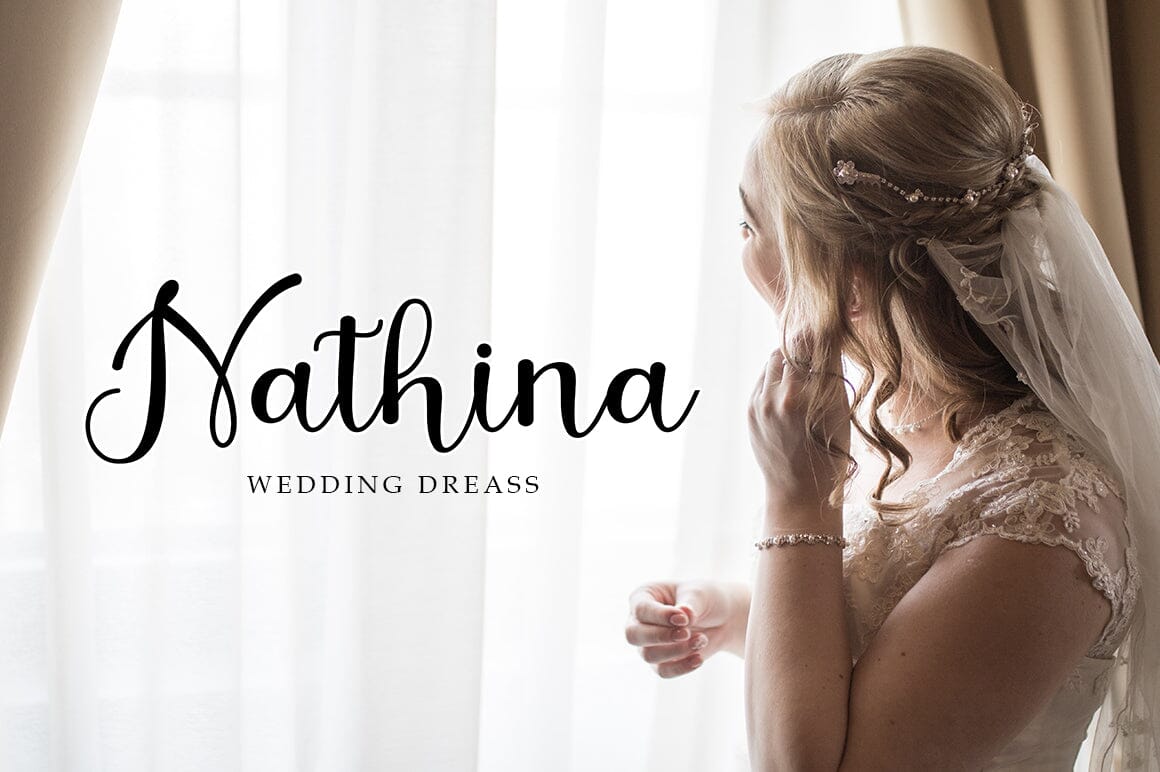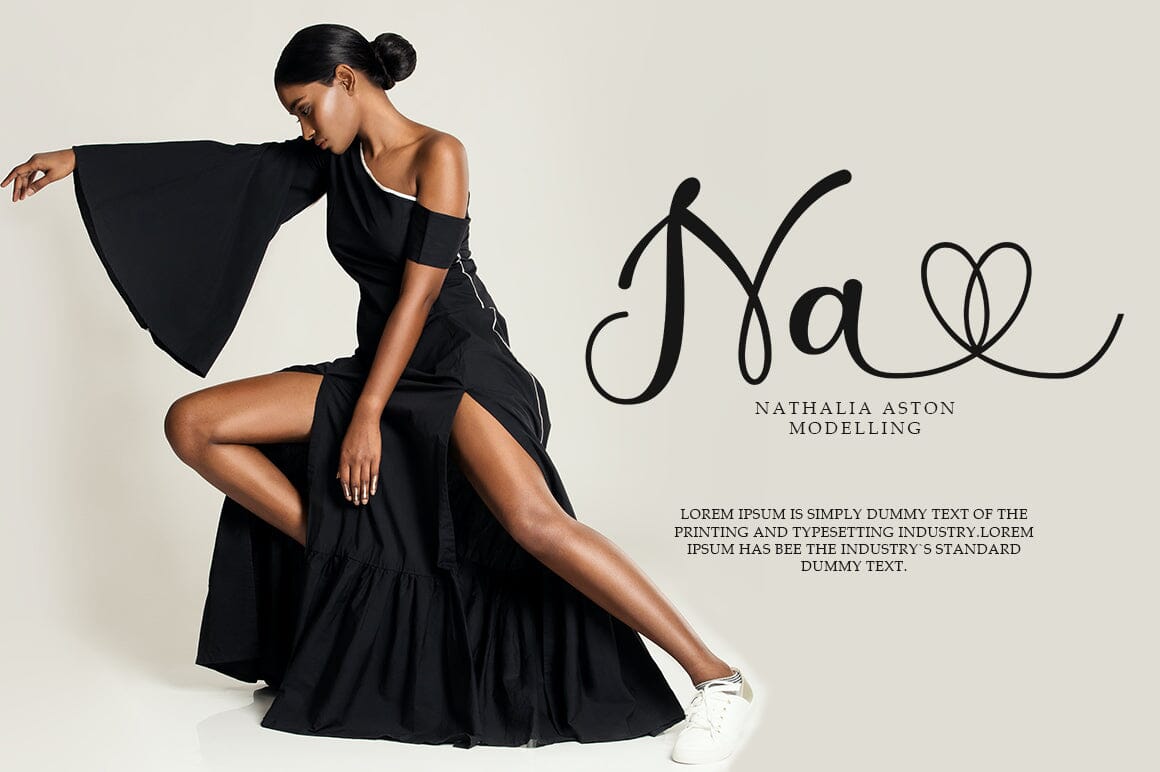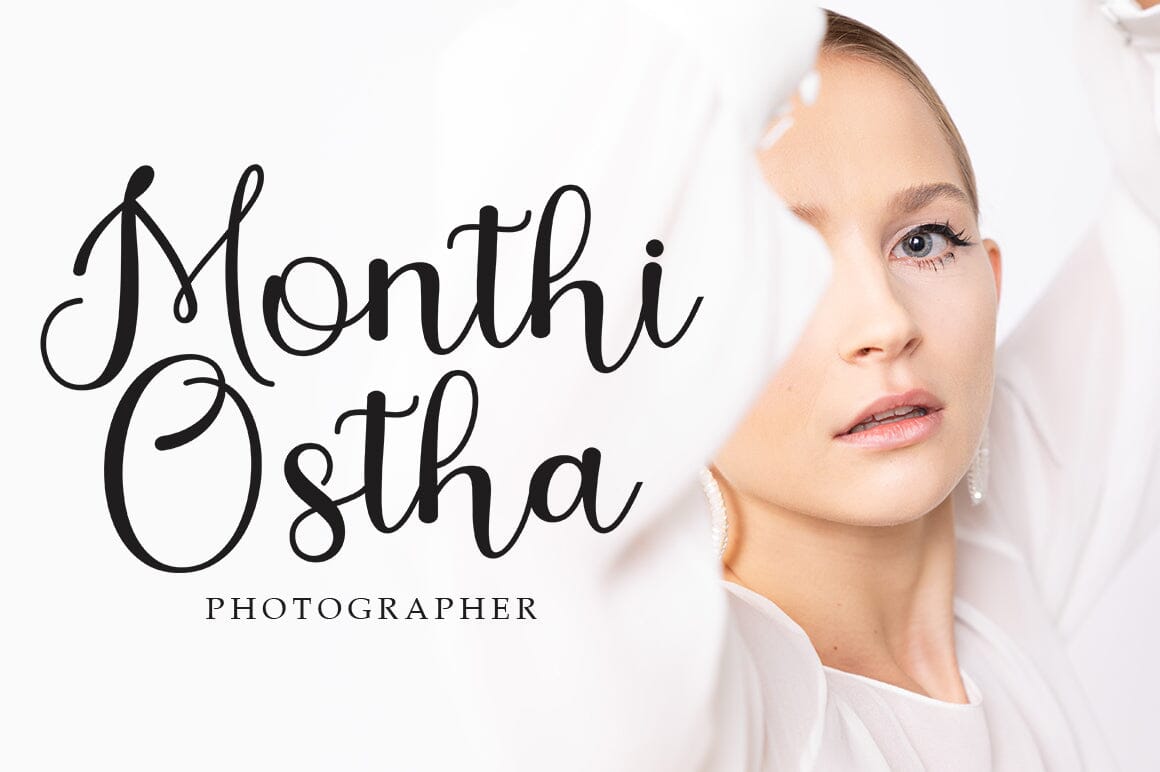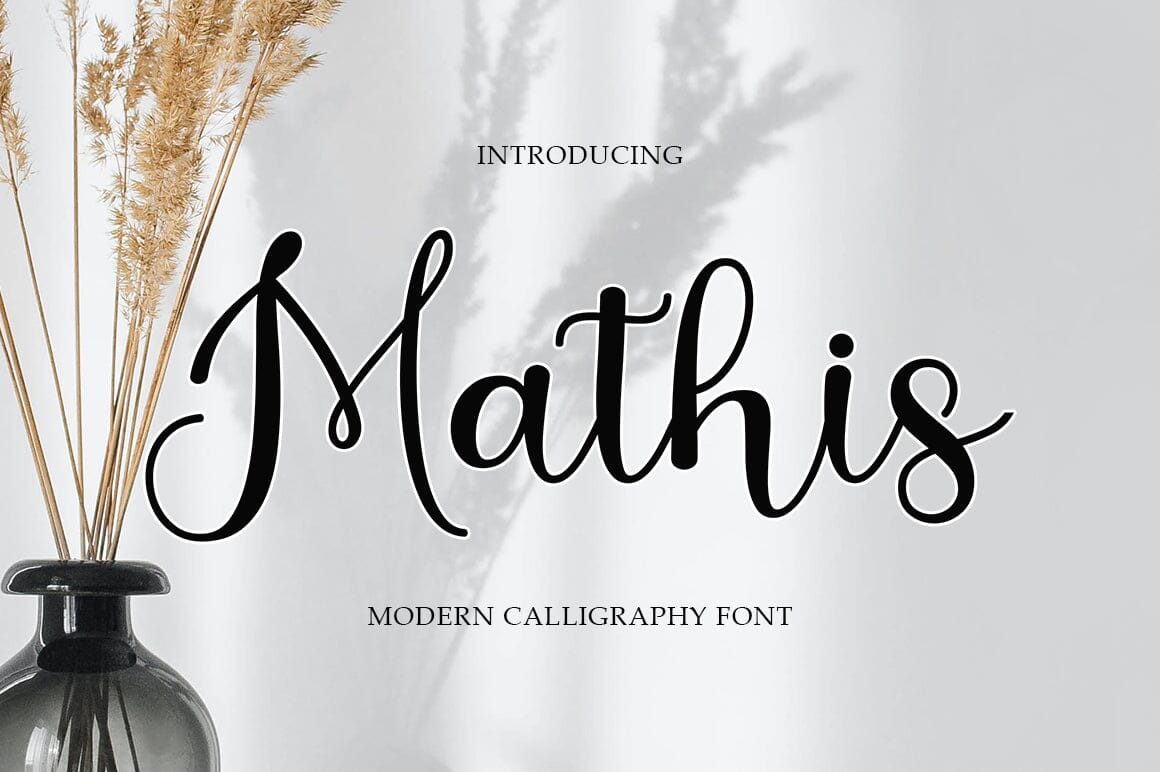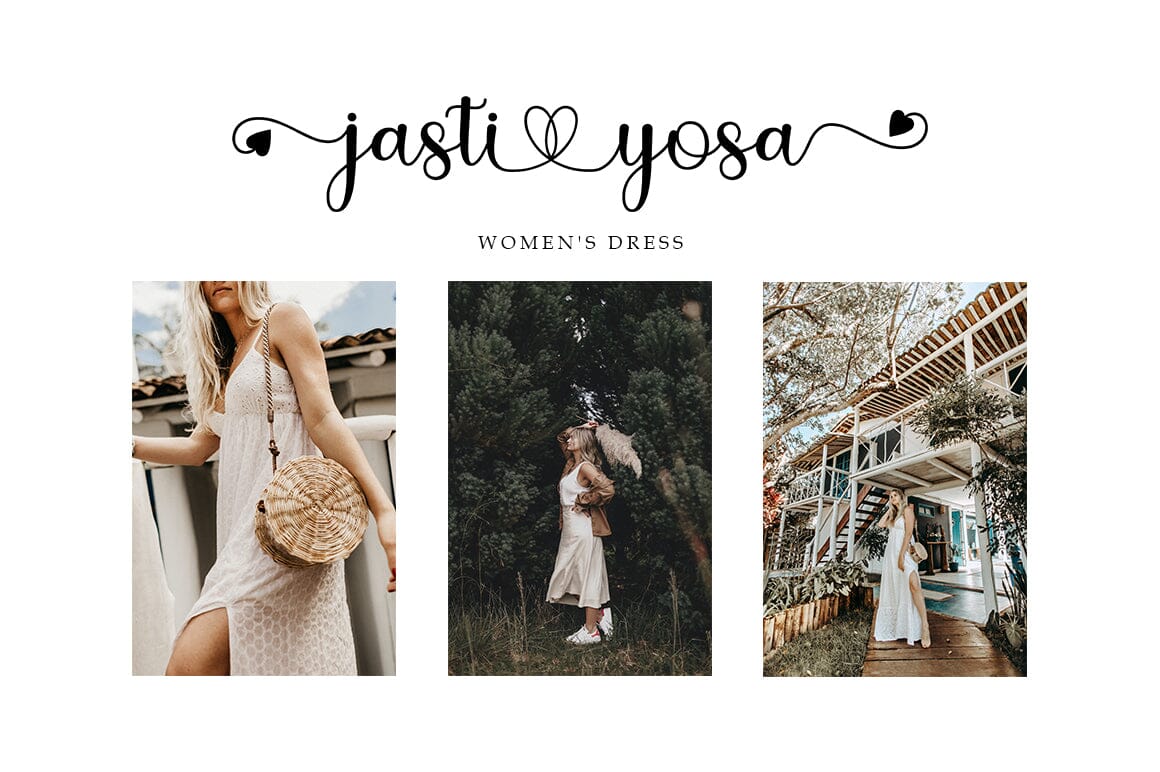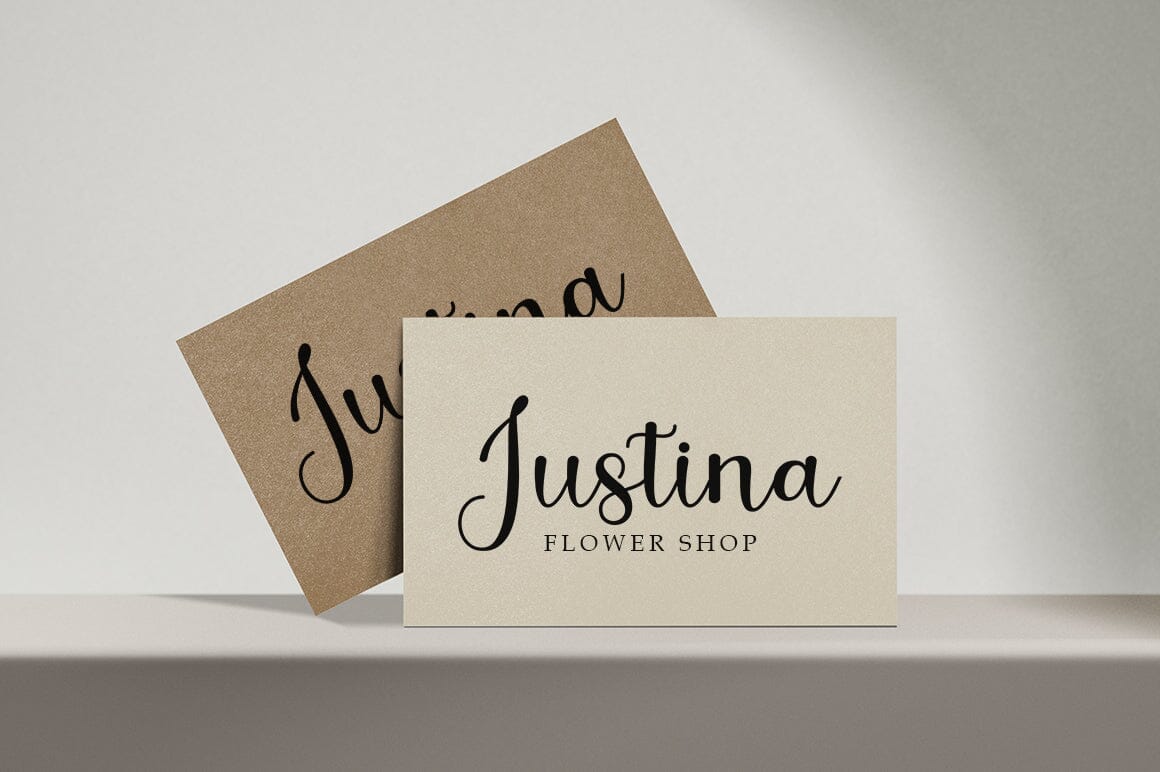
Mathis
Mathis is a beautiful Calligraphy font with a touch of love. Mathis is perfect for branding projects, home appliance design, product packaging, use in business cards, invitation cards, etc. Includes OTF/TTF Thanks for checking! I really hope you enjoy it.